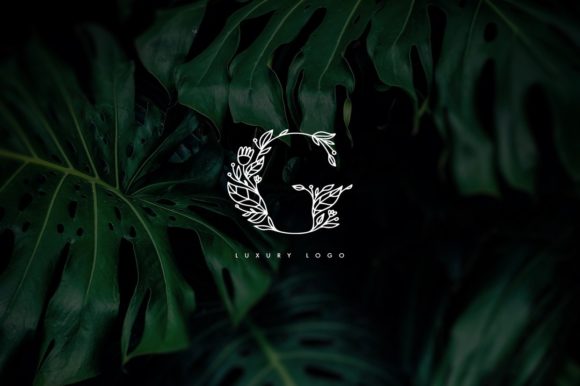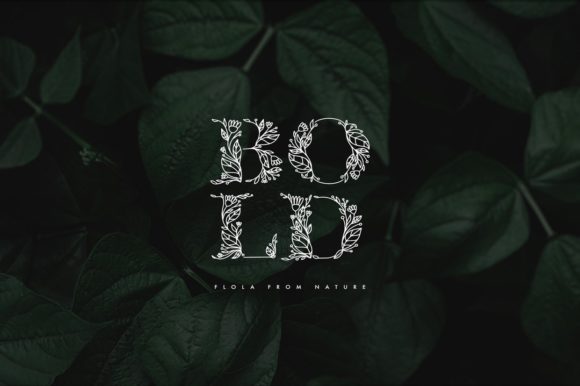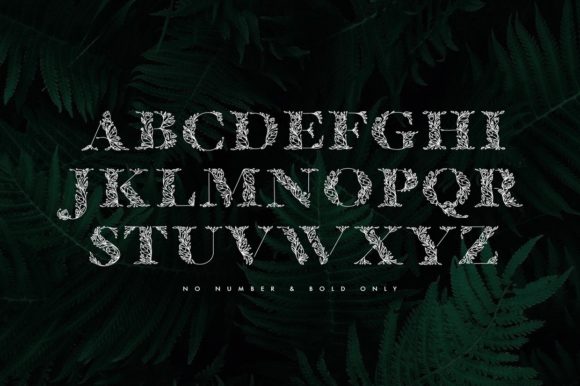
The Flola Font: A Decorative Masterpiece for Your Designs
I’ll never forget the time I was working on a branding project for a luxury floral shop. My client wanted a font that would reflect the elegance and sophistication of their business, but I was struggling to find the perfect fit. That was until I stumbled upon the Flola font – a stunning decorative font that combines leaves and flowers to form beautiful, classy letters. In this article, I’ll share my experience with Flola, its features, and how to make the most of it in your designs.
An Honest Review of Flola Font
What I Love About Flola ✨
- 💐 The unique composition of leaves and flowers to form letters makes it truly stand out.
- 🎉 It’s perfect for titles and logos, adding a touch of luxury and sophistication.
- 👍 The font is well-designed, with intricate details that make it a joy to use.
- ✅ It’s versatile and can be used for various design projects, from branding to packaging.
While Flola is an amazing font, there are a few things to keep in mind:
- 🤔 It may not be the best choice for body text, as its decorative nature can make it difficult to read in large blocks.
- ⚠️ Some characters may not be suitable for use at small sizes, so be sure to test it before finalizing your design.
- Experiment with the font’s OpenType features, such as glyphs and stylistic alternates, to add more creativity to your design.
The Designer Inspiration Behind Flola
According to its designer, Flola was inspired by the beauty of nature and the art of floristry. The designer wanted to create a font that would capture the essence of luxury and sophistication, while also being unique and eye-catching. The result is a stunning decorative font that’s perfect for designers and crafters looking to add a touch of elegance to their projects.
Q: What type of projects is Flola best suited for?
A: Flola is perfect for titles, logos, branding, and packaging designs where a touch of luxury and sophistication is desired.
Q: Can I use Flola for body text?
A: While Flola is a beautiful font, it’s not recommended for body text due to its decorative nature. It’s best used for headings and titles.
Q: Does Flola support OpenType features?
A: Yes, Flola supports OpenType features, including glyphs and stylistic alternates, which can be accessed in compatible design software.
Q: Is Flola a difficult font to use?
A: No, Flola is relatively easy to use, even for beginners. Its simplicity and elegance make it a joy to work with, and its features can be easily accessed in most design software.